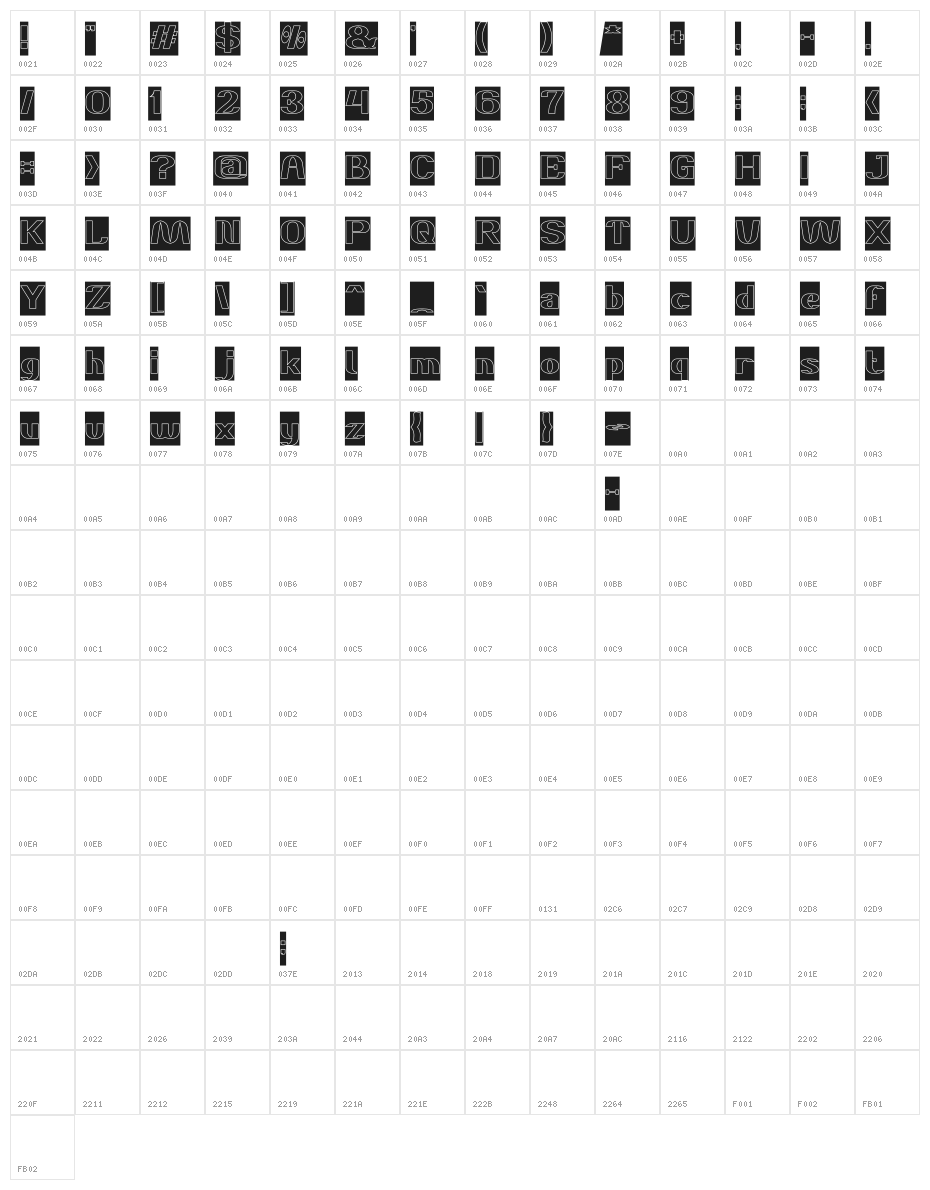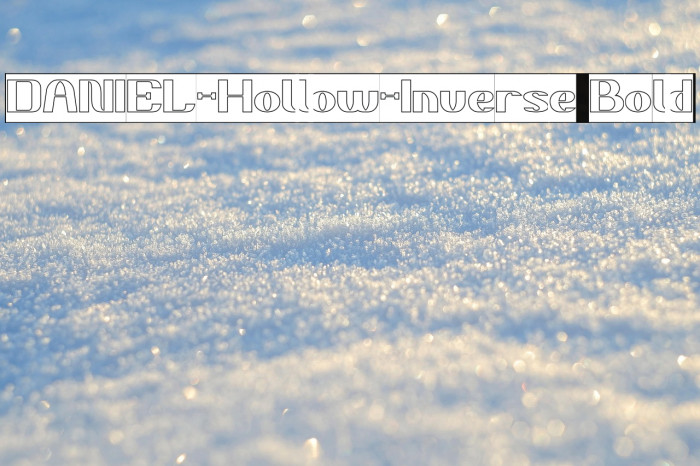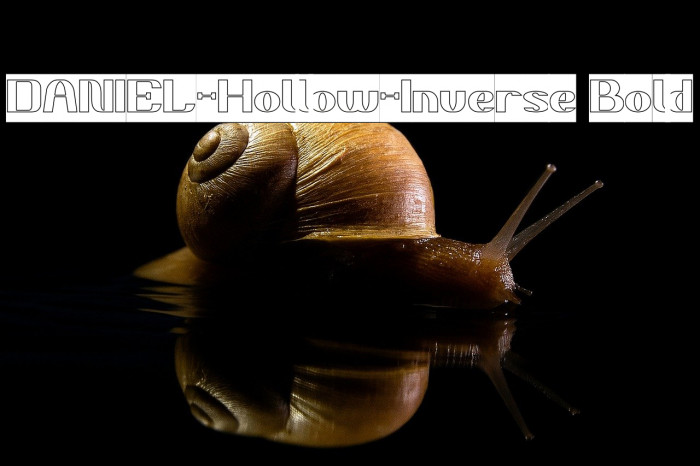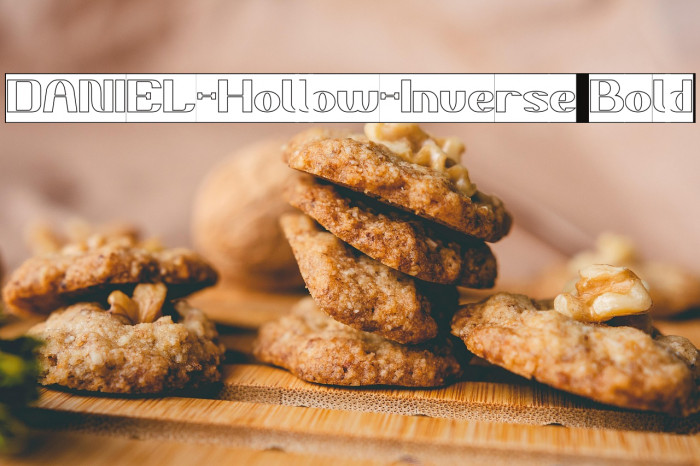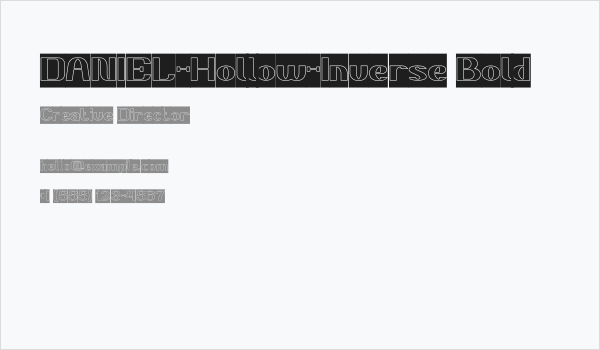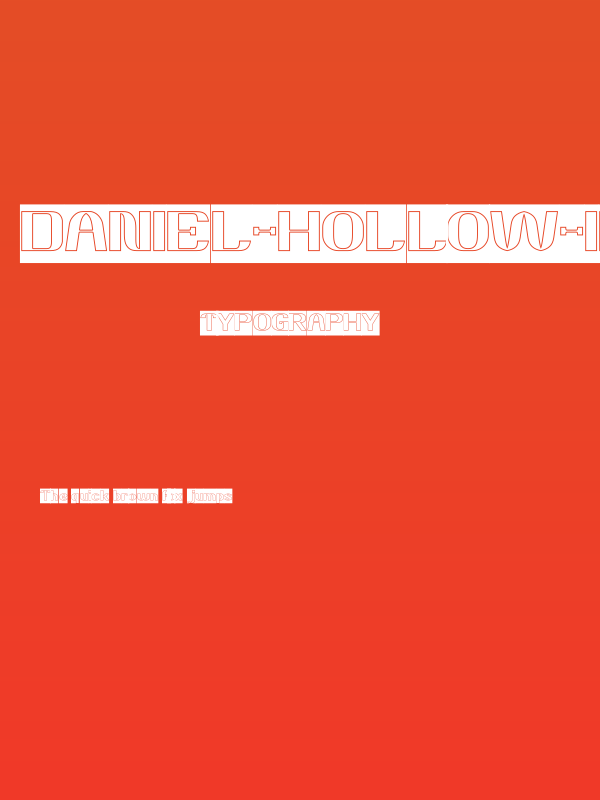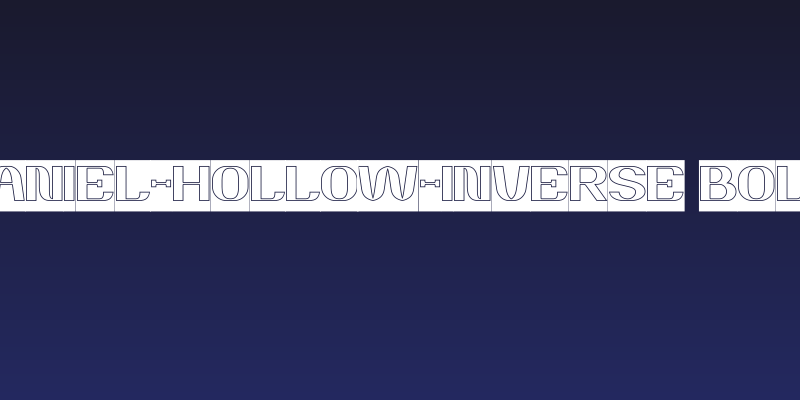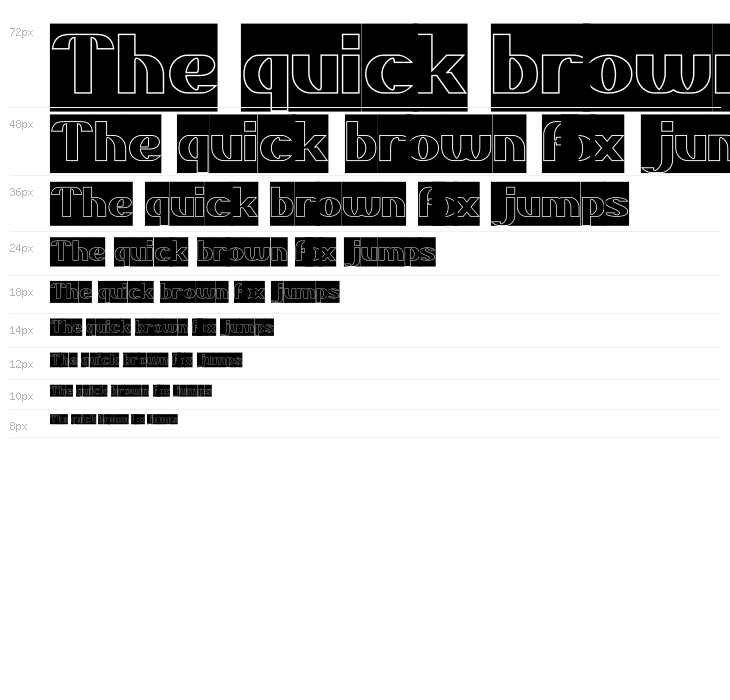
DANIEL-Hollow-Inverse Bold Font
DANIEL-Hollow-Inverse Bold Description
This font features a bold, hollow design with an inverse style, creating a striking and modern appearance. The uppercase and lowercase letters maintain a consistent width, providing a uniform look across all characters. The numerals and special characters follow the same hollow, bold style, ensuring cohesion throughout the font. The design is clean and geometric, with sharp edges and a contemporary feel, making it suitable for various creative applications. The hollow aspect adds a unique dimension, allowing for interesting visual effects when layered over different backgrounds.
| Proposed Projects | Ideal for headlines, posters, branding, and any project requiring a bold, eye-catching typeface. |